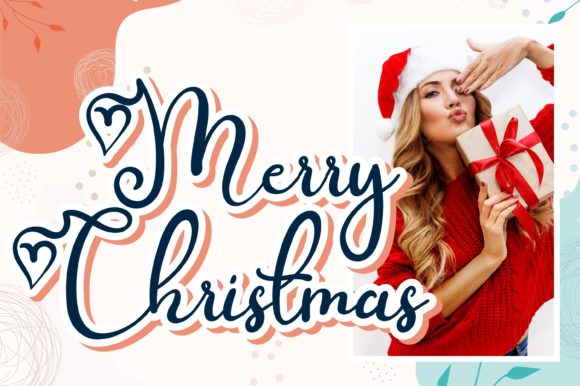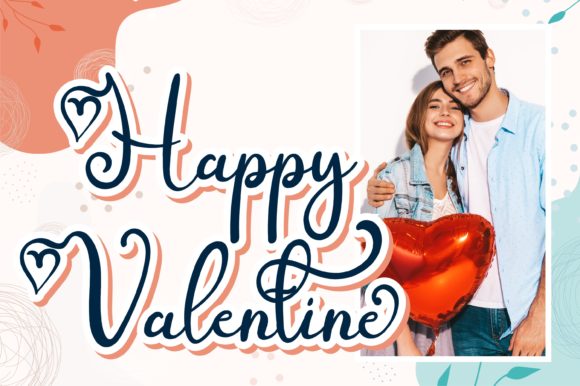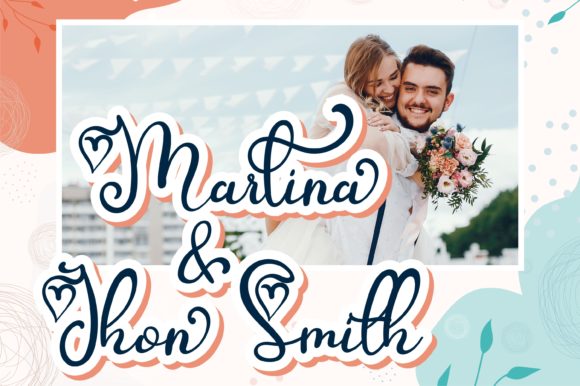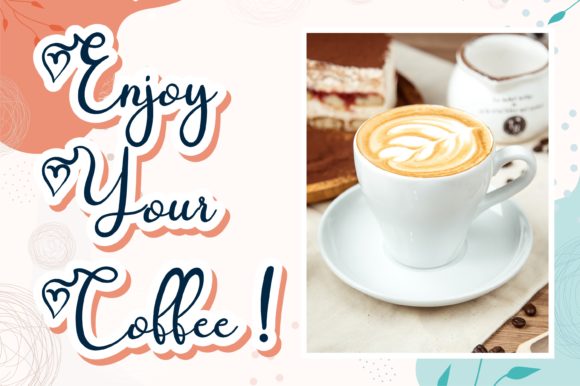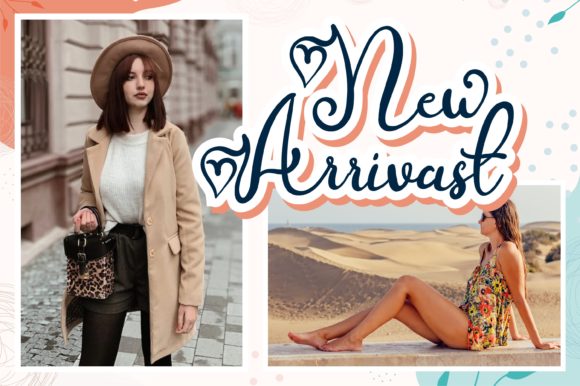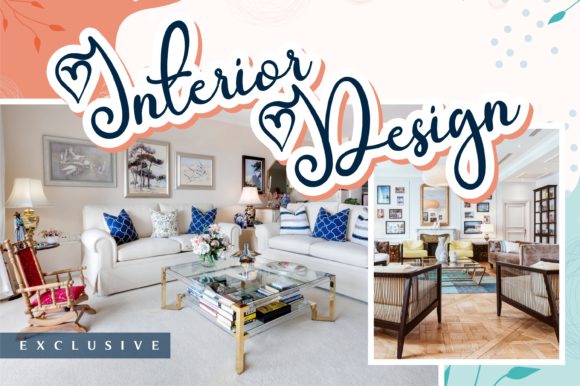
Discovering the Perfect Touch of Whimsy
Have you ever been working on a design project, and the perfect font just slips right out of your mind? You envision a delicate, dreamy handwritten script that captures the essence of your vision, but you can’t quite put your finger on it. That’s where the Beauty Melly Font comes in – a charming, well-rounded font that’s sure to bring a touch of whimsy to your next project.
This lovely font is a go-to for holiday-themed greeting cards and crafting projects that require a romantic touch. Its distinct, flowing letters make it a true favorite among designers, and for good reason. With the Beauty Melly Font, you can add a dash of elegance and sophistication to any design, making it a valuable addition to any font collection.
Beauty Melly Font Key Features
- Font Family: Beauty Melly, Beauty Melly Script, Beauty Melly Outline
- Unique Characteristics: Hand-drawn, elegant, and feminine design with a touch of whimsy, ideal for wedding invitations, greeting cards, and feminine branding
- Font Style: Script, Outline, Regular
Designer Review: Beauty Melly Font
When I first stumbled upon the Beauty Melly Font, I was immediately drawn in by its feminine and elegant aesthetic. ✨ The font’s flowing curves and delicate flourishes evoke a sense of luxury and sophistication, making it perfect for high-end beauty brands, fashion designers, or any project that requires a touch of glamour.
One of the things that really stands out about the Beauty Melly Font is its excellent legibility. ✨ Even at smaller font sizes, the letters remain clear and easy to read, which is a testament to the font’s well-designed structure.
- ⚠️ The font’s intricate details may not be suitable for body text or large blocks of text, as they can become overwhelming and difficult to read.
- ⚠️ The font may not be the best choice for projects that require a more modern or edgy aesthetic, as it tends to lean towards a more traditional and classic look.
Overall, I would say that the Beauty Melly Font is a solid choice for designers who need a high-end, elegant font for their projects. While it may have some limitations, its excellent legibility and beautiful aesthetic make it a great addition to any designer’s toolkit.
Alternatives to Beauty Melly Font
Great Vibes Font is a modern and elegant script font. It is ideal for use in wedding invitations, greeting cards, and other creative projects where a touch of sophistication is needed.
Compared to Beauty Melly Font, Great Vibes Font has a more refined and polished feel. While Beauty Melly Font has a playful and whimsical tone, Great Vibes Font is more suitable for formal events and occasions.
Lobster Font is a fun and casual script font. It is perfect for use in social media graphics, advertisements, and other marketing materials where a playful and attention-grabbing tone is needed.
Compared to Beauty Melly Font, Lobster Font is more laid-back and carefree. While Beauty Melly Font has a feminine and elegant tone, Lobster Font is more masculine and fun-loving.
Playfair Display Font is a luxurious and elegant serif font. It is ideal for use in high-end branding, packaging, and other design projects where a touch of luxury is needed.
Compared to Beauty Melly Font, Playfair Display Font is more formal and sophisticated. While Beauty Melly Font has a playful and whimsical tone, Playfair Display Font is more suitable for high-end and premium brands.